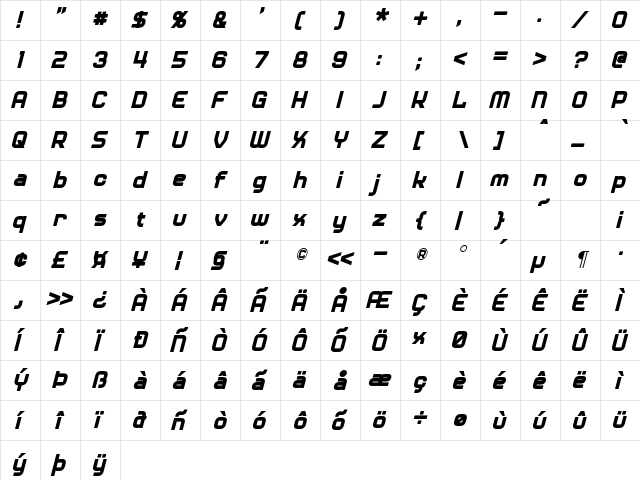
Diner Italic
Design Context for Diner Typeface
Diner is a composed and adaptable typeface that performs quietly and consistently across a wide range of design contexts. The slanted form adds forward momentum and visual energy.
Pro Tip: Use Diner for emphasis, pull quotes, and subheadings where its slanted energy can add rhythm to the layout.